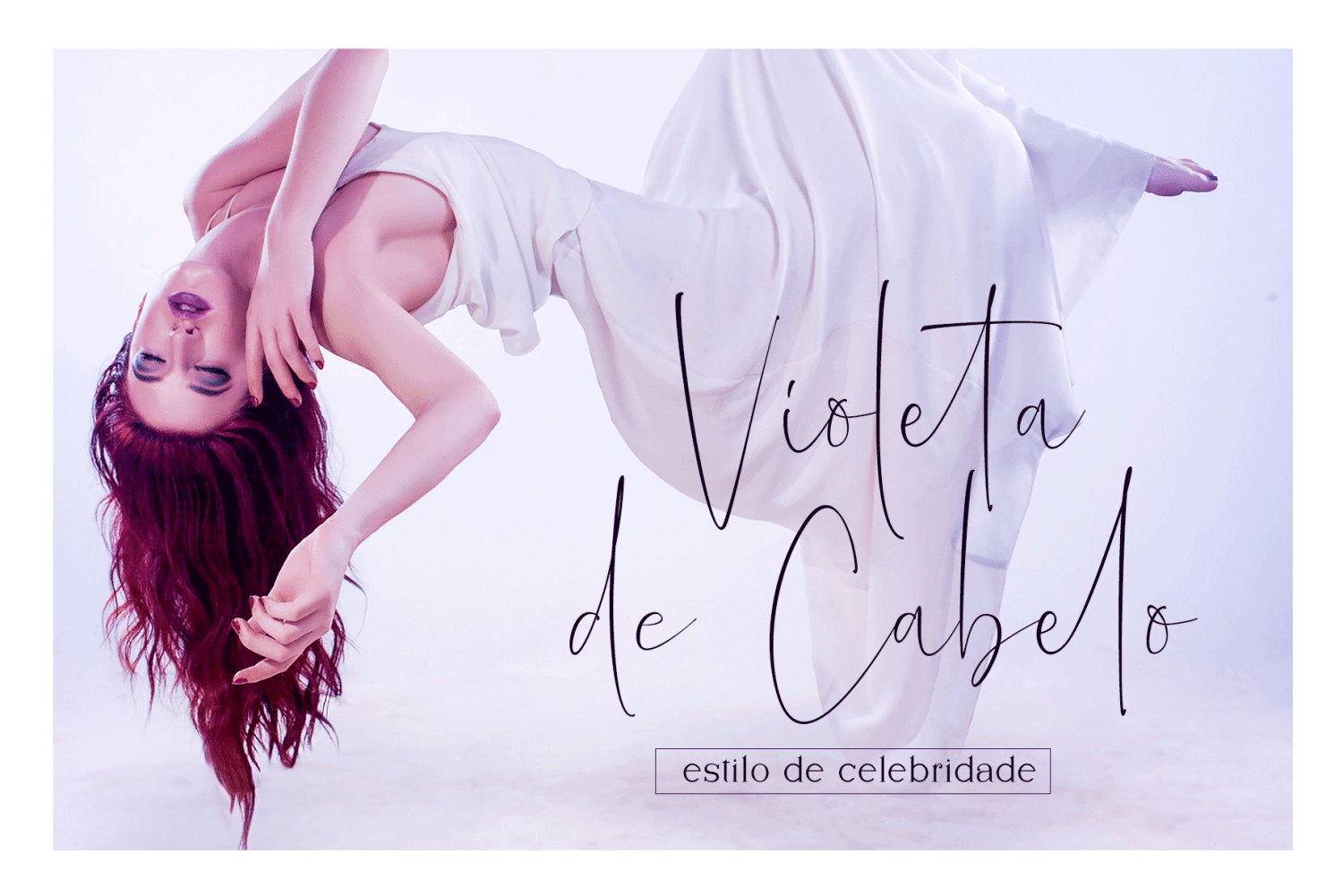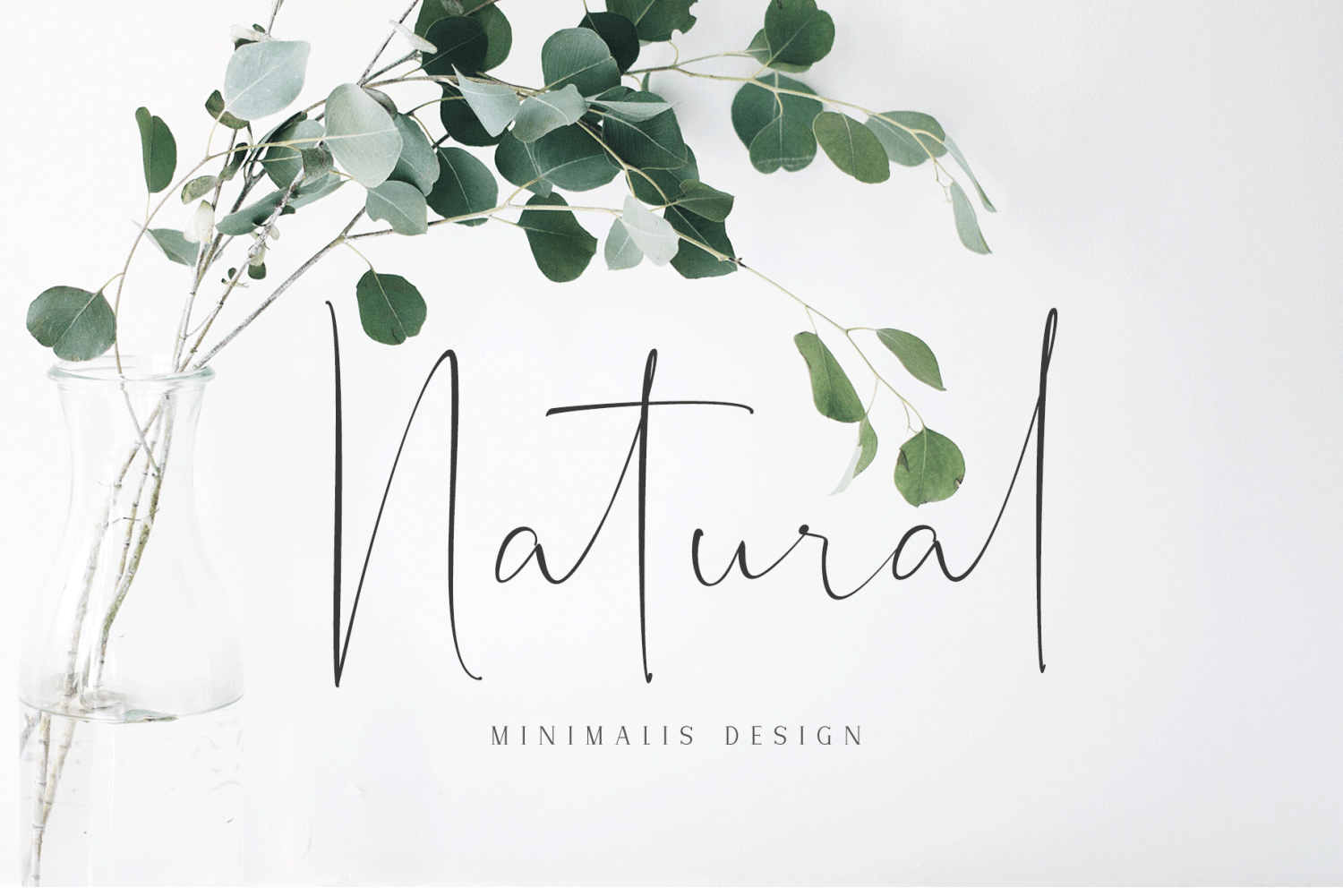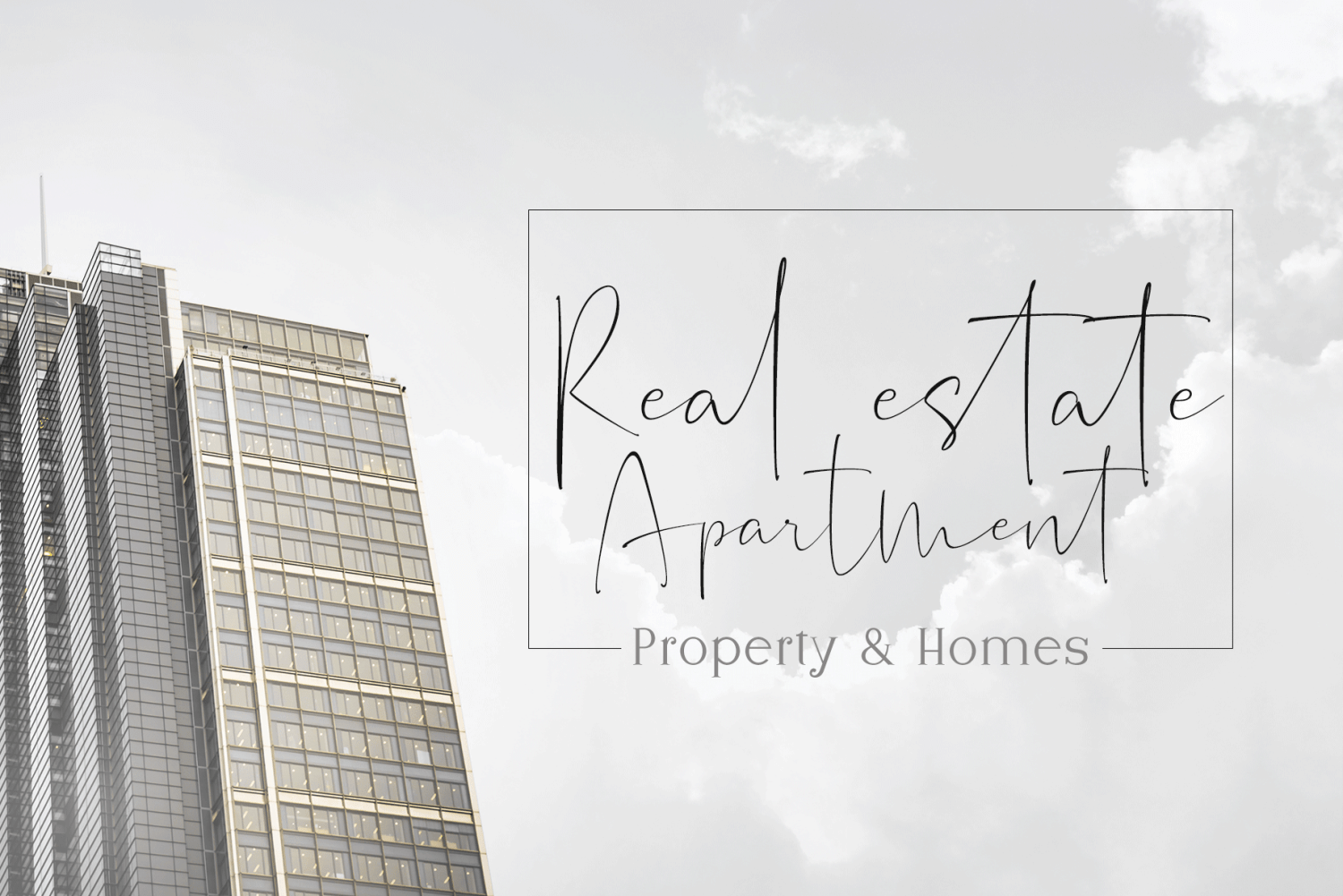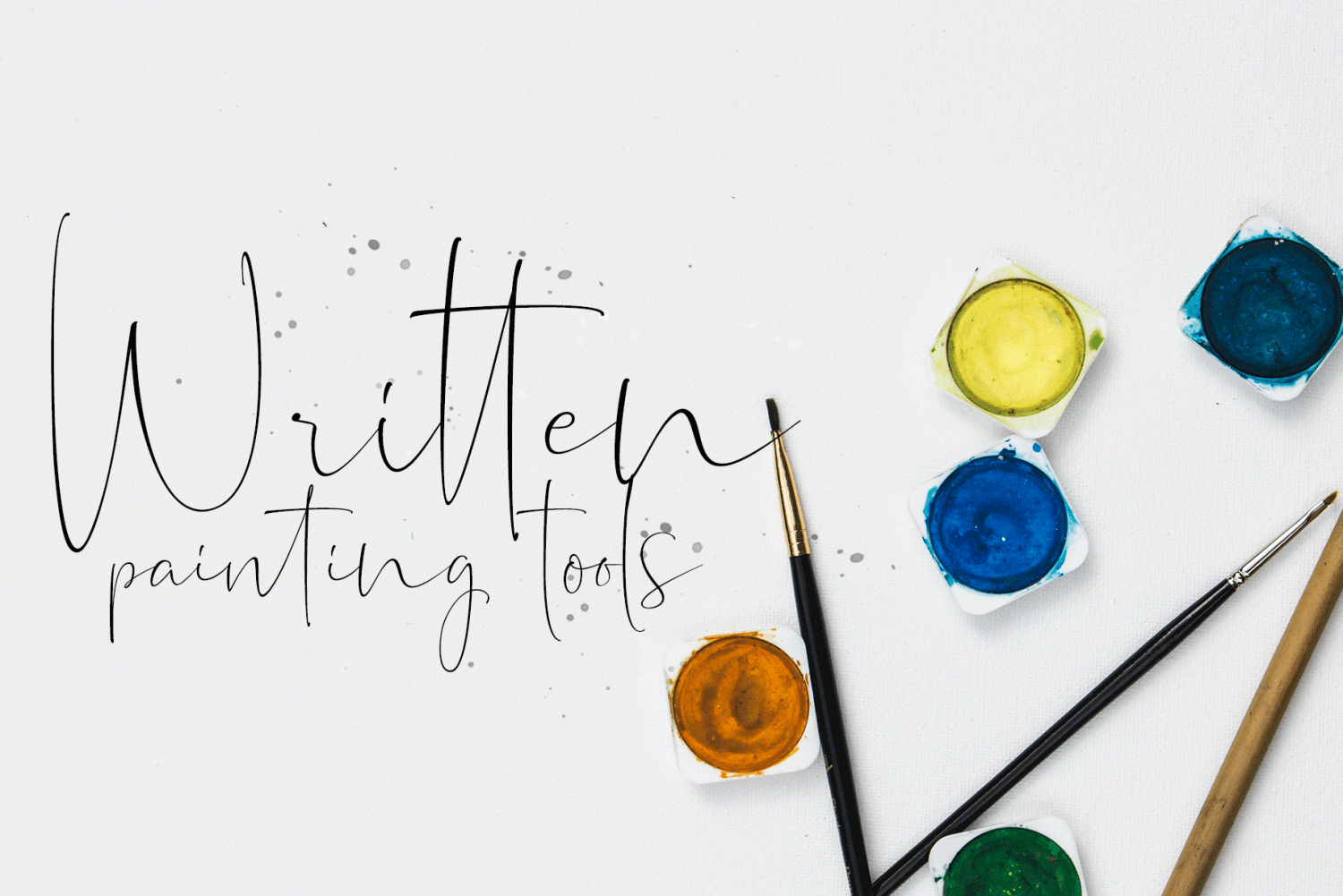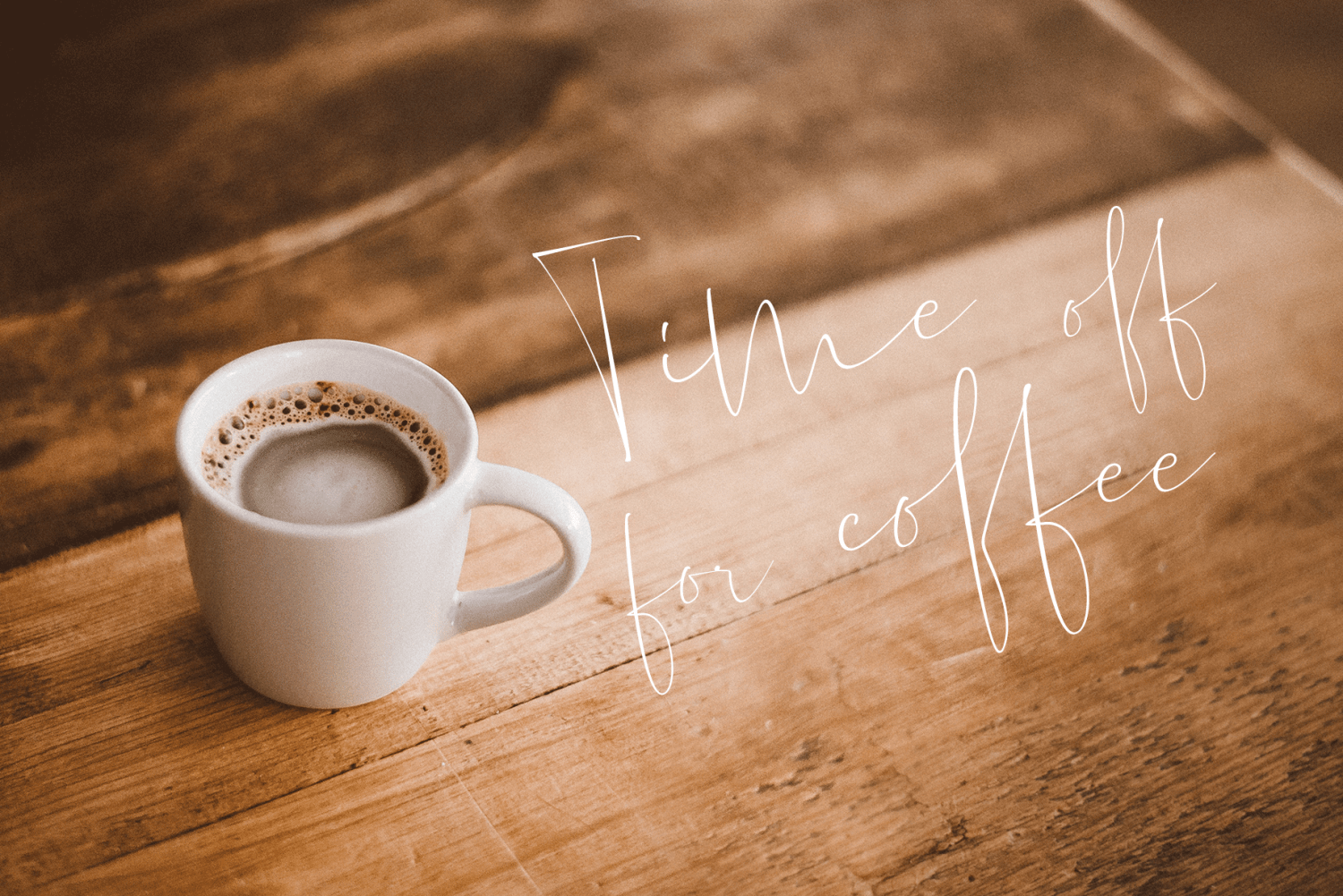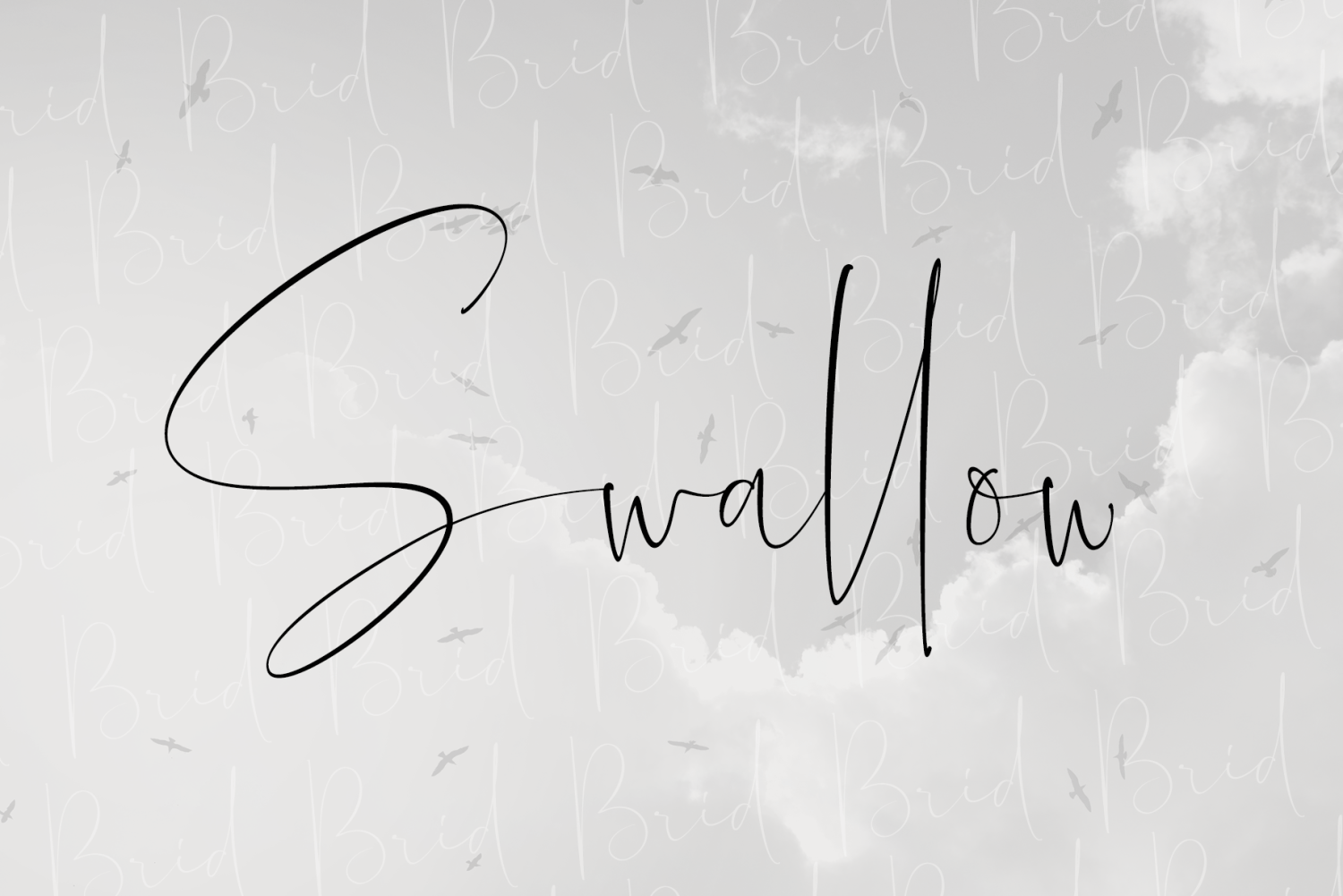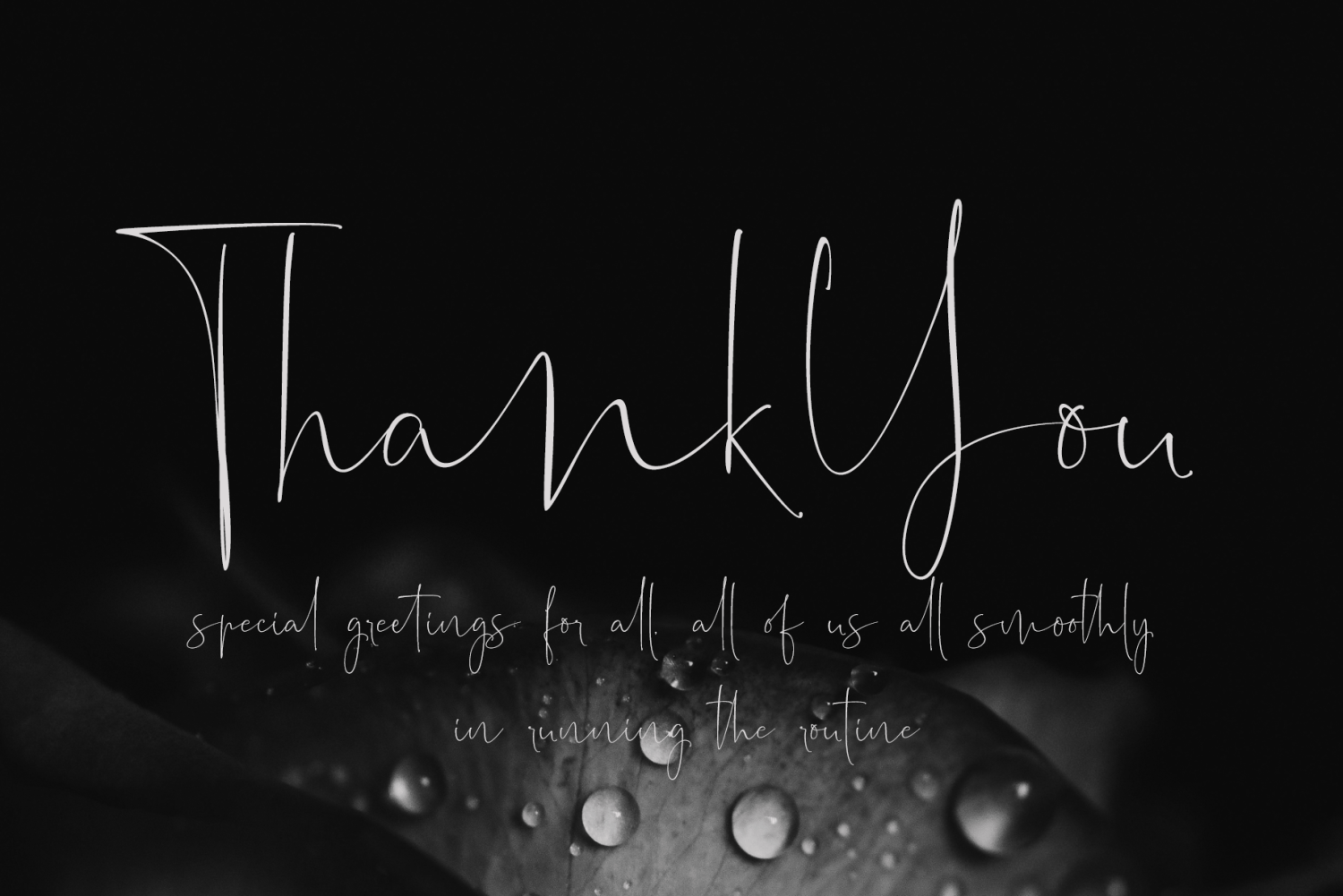
Agustrush
Agustrush a work that is purely a result of handwriting, has a natural characteristic. this is perfect for invitations, signatures, blogs, social media, business cards, product brands.
Agustrush a work that is purely handwritten, has its own characteristics with the style of monoline It is perfect for invitations, signatures, blogs, social media, business cards, product brands, also equipped with 52 ligature.